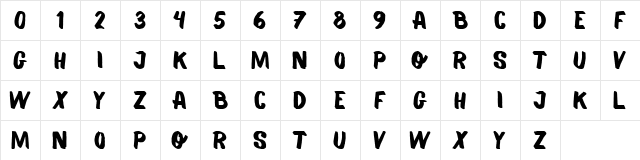
Balmy Regular
Design Context for Balmy Typeface
Balmy is a composed and adaptable typeface that performs quietly and consistently across a wide range of design contexts.